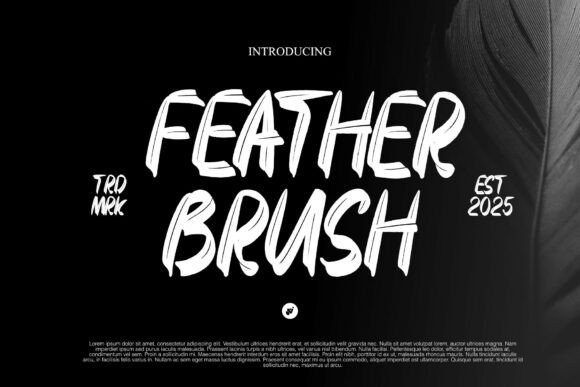
Introducing Feather Brush Font: A Dynamic and Artistic Display Font
In the world of typography, few fonts manage to capture the essence of natural creativity and artistic expression as effectively as the Feather Brush Font. Inspired by the natural strokes of a paintbrush, this brush display font features a dynamic and energetic style that is sure to elevate any design project. With its bold, textured lines and slightly irregular letterforms, Feather Brush Font gives off a raw, handcrafted feel that is perfect for headlines, logos, and branding that need a distinctive, artistic look.
The Inspiration Behind Feather Brush Font
The Feather Brush Font draws its inspiration from the traditional art of painting and the expressive qualities of a paintbrush. Each letterform is carefully crafted to mimic the natural strokes and textures of a brush, giving the font a unique and organic feel. The result is a font that looks like it was hand-painted by an artist, with all the character and charm that entails.
The use of natural materials and techniques in art has long been a source of inspiration for designers and typographers. By harnessing the expressive qualities of a paintbrush, the Feather Brush Font is able to convey a sense of creativity and spontaneity that is hard to find in more traditional fonts.
Key Features of Feather Brush Font
So what sets the Feather Brush Font apart from other display fonts on the market? Here are a few key features that make it stand out:
- Dynamic and Energetic Style: The Feather Brush Font has a lively, energetic feel that is perfect for grabbing attention and making a statement.
- Bold, Textured Lines: The font’s bold lines and textured strokes give it a raw, handcrafted feel that adds depth and character to any design.
- Slightly Irregular Letterforms: The slightly irregular shapes of the letterforms add to the font’s handcrafted feel, giving it a unique and artistic look.
- Perfect for Headlines and Logos: The Feather Brush Font is ideal for use in headlines, logos, and branding, where a distinctive and artistic look is desired.
Using Feather Brush Font in Your Designs
So how can you use the Feather Brush Font to elevate your designs? Here are a few ideas to get you started:
- Headlines and Titles: Use the Feather Brush Font to add a touch of creativity and flair to your headlines and titles. Its bold, textured lines and dynamic style make it perfect for grabbing attention and making a statement.
- Logos and Branding: The Feather Brush Font is ideal for use in logos and branding, where a distinctive and artistic look is desired. Its unique, handcrafted feel can help to set your brand apart from the competition.
- Posters and Flyers: Add a touch of artistic flair to your posters and flyers with the Feather Brush Font. Its bold, textured lines and dynamic style make it perfect for use in advertising and promotional materials.
- Social Media Graphics: Use the Feather Brush Font to add a creative touch to your social media graphics. Its unique, handcrafted feel can help to make your social media posts stand out from the crowd.
Tips for Getting the Most Out of Feather Brush Font
Here are a few tips for getting the most out of the Feather Brush Font:
- Experiment with Different Colors: The Feather Brush Font looks great in a variety of colors, so don’t be afraid to experiment and find the perfect hue for your design.
- Play with Texture and Pattern: The font’s textured strokes and slightly irregular letterforms make it perfect for use with texture and pattern. Try combining it with different textures and patterns to add depth and interest to your design.
- Use it Sparingly: While the Feather Brush Font is perfect for headlines and logos, it can be overwhelming if overused. Use it sparingly to add a touch of creativity and flair to your design.
In conclusion, the Feather Brush Font is a dynamic and artistic display font that is perfect for adding a touch of creativity and flair to your designs. With its bold, textured lines and slightly irregular letterforms, it has a raw, handcrafted feel that is sure to elevate any design project. Whether you’re looking to create a distinctive logo, add some artistic flair to your posters and flyers, or simply want to make a statement with your headlines and titles, the Feather Brush Font is the perfect choice.